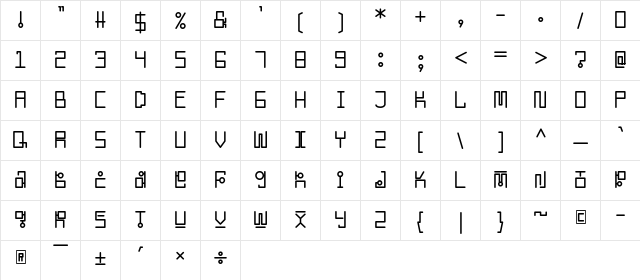
Korean Looks Regular
Design Context for Korean Looks Typeface
Korean Looks is a composed and adaptable typeface that performs quietly and consistently across a wide range of design contexts.